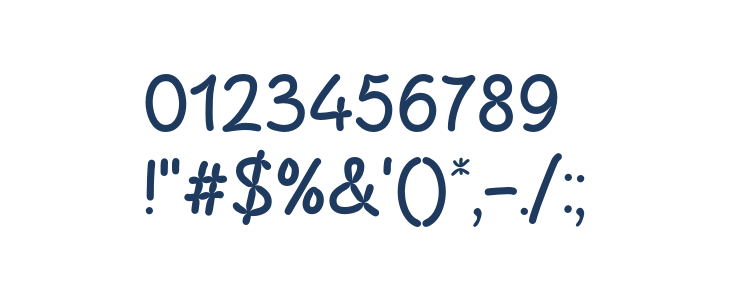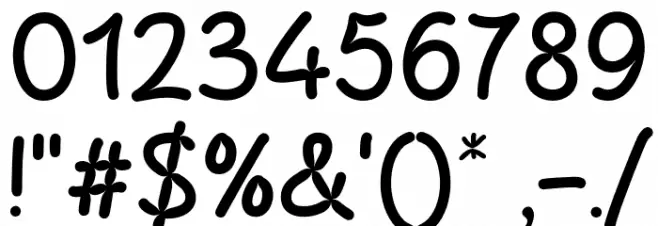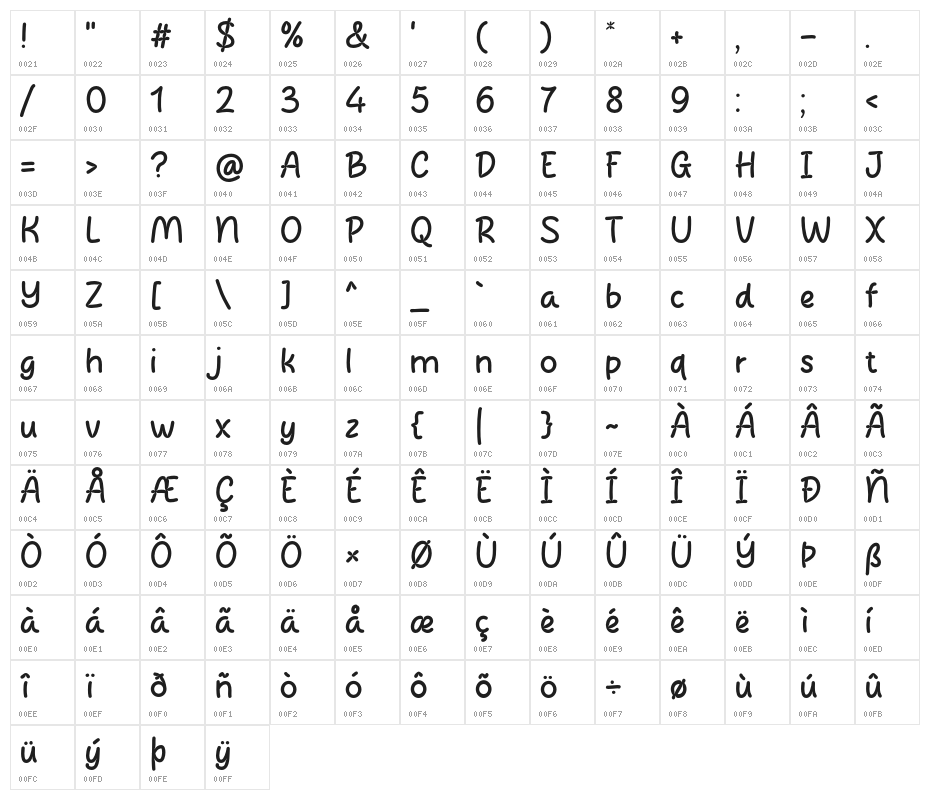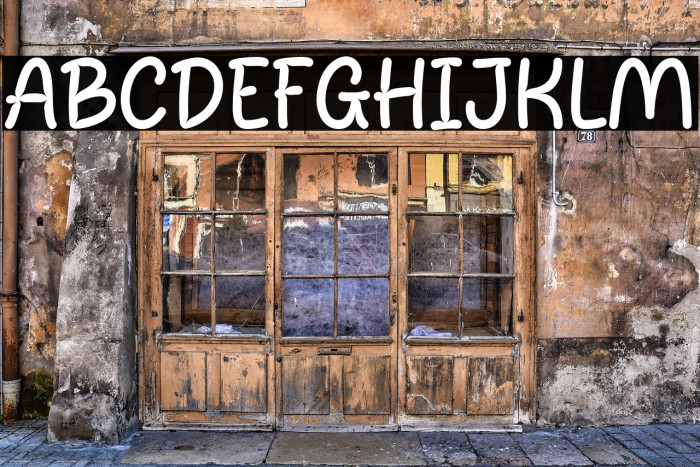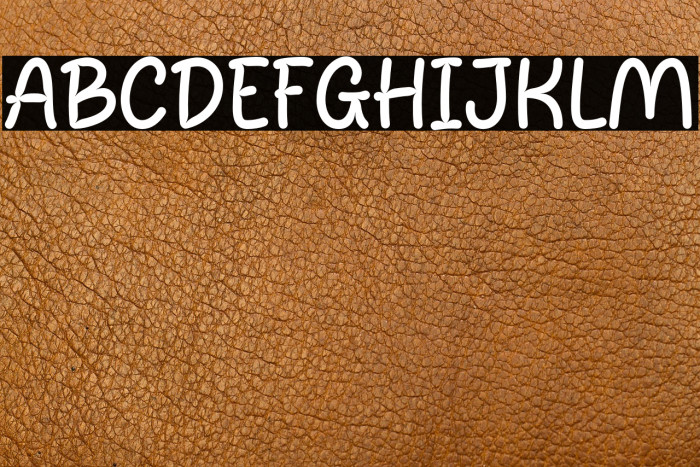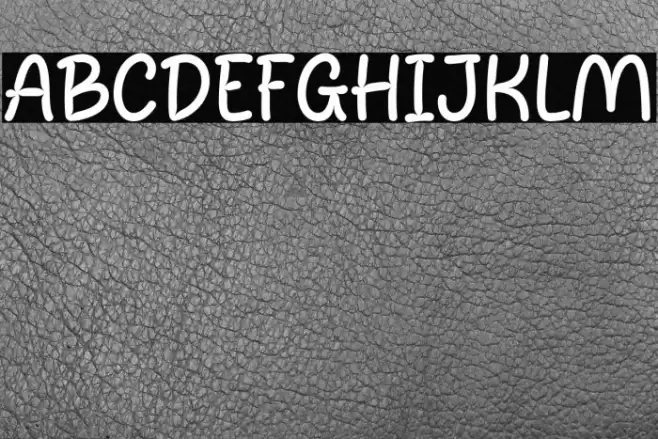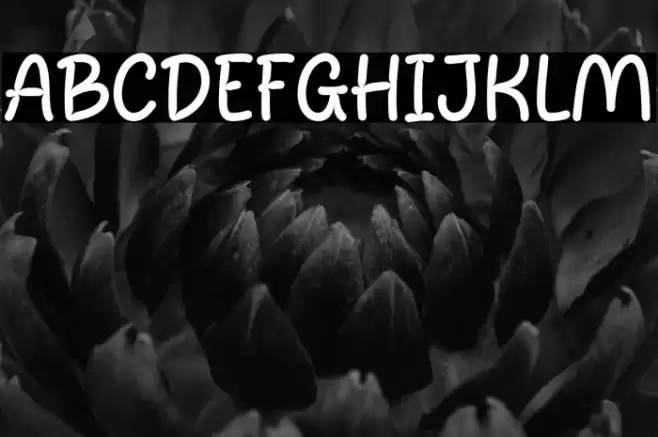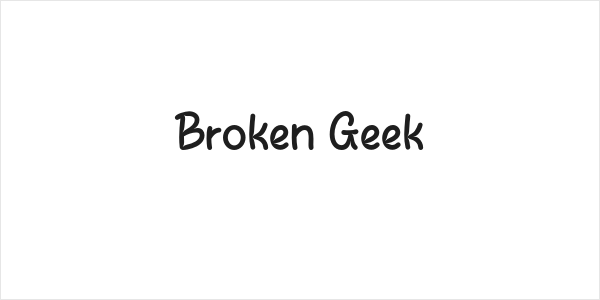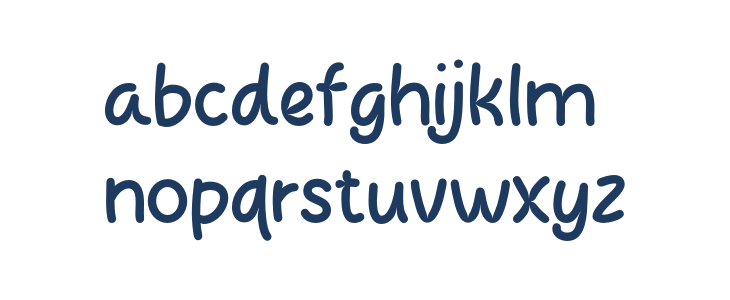
Broken Geek Font
Broken Geek Description
This font features a playful and casual handwritten style, characterized by its rounded and slightly irregular letterforms. The strokes are consistent in thickness, giving it a uniform appearance while maintaining a friendly and approachable vibe. The uppercase and lowercase letters are well-balanced, with a slight tilt that adds to its informal charm. Numbers and special characters follow the same style, ensuring cohesion across all elements. This font is ideal for projects that require a personal touch or a fun, relaxed aesthetic.
| Use Case | Headlines, Informal text, Creative projects |
| Proposed Projects | Ideal for children's books, greeting cards, casual branding, and social media graphics. |